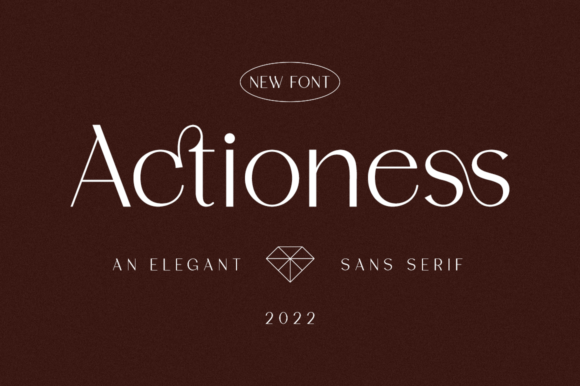
Unlock the Power of Actioness Font
Have you ever stared at a blank canvas, overwhelmed by the endless possibilities of a new project? You know that feeling when the creative juices start flowing, and suddenly, every idea seems like a game-changer? That’s where Actioness Font comes in – a minimalist and modern sans serif font that’s about to become your new go-to partner in crime.
Actioness Font is more than just a font; it’s a versatile tool that can elevate your designs to the next level. Whether you’re working on a branding project, creating a marketing campaign, or designing a website, this font is sure to make your work stand out. Its clean lines and modern aesthetic make it an ideal choice for designers looking to create visually appealing and professional-looking designs.
Actioness Font Key Features
- Unique Characteristics: Actioness Font is designed to evoke a sense of dynamism and energy, with bold lines, geometric shapes, and a mix of serif and sans-serif elements.
- Font Style and Weight: The font family includes multiple styles, including bold, light, italic, and bold italic, offering users a range of options for creating visually appealing typography.
- Scalability: The font is designed to be highly scalable, allowing it to be used effectively in a wide range of applications, from small text to large headlines and titles.
Actioness Font Review
Overall, I’m impressed with the Actioness Font. It’s a solid choice for any project that requires a modern, energetic feel. ✨ The font’s clean lines and geometric shapes make it perfect for headlines and titles.
- The font’s versatility is one of its strongest points. It works well for a wide range of applications, from digital displays to print materials.
- Actioness Font is highly legible, even at small font sizes, making it a great choice for mobile apps and websites.
- The font’s high x-height makes it easy to read for people of all ages and reading abilities.
However, there are some limitations to consider. ⚠️ The font’s thin lines can make it difficult to read in certain environments, such as low-light conditions.
Another issue is that the font’s geometric shape can make it feel a bit sterile or cold in certain contexts. This might not be the best choice for projects that require a warm or friendly tone.
Overall, I would recommend the Actioness Font for projects that require a modern, energetic feel. While it may have some limitations, it’s a solid choice for any project that needs a clean and legible font.
Actioness font is best suited for creating bold, eye-catching headlines and titles. Use it for:
– Promotional materials
– Branding and logo designs
– Any project where you want to add a dynamic, energetic feel.
For optimal results, pair the Actioness font with a clean, simple design and plenty of negative space. Experiment with different font sizes and styles to create visual interest and hierarchy.